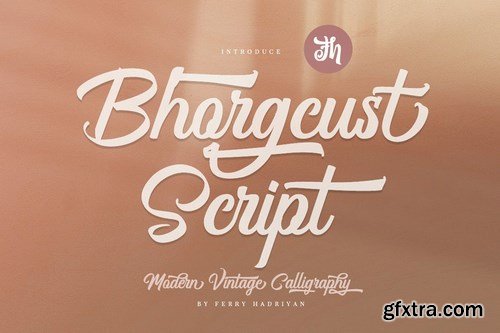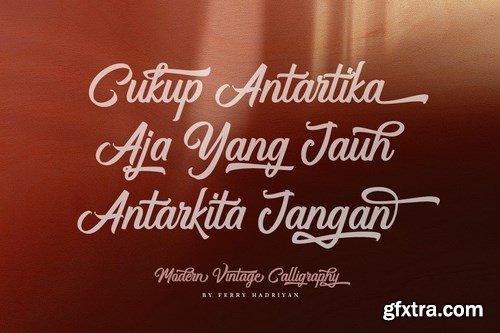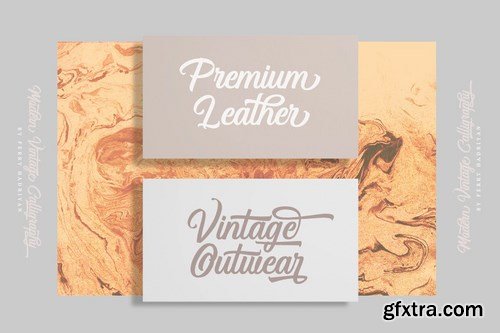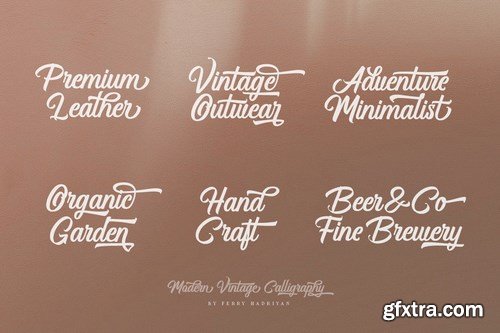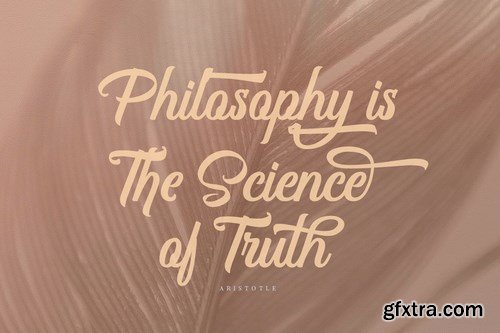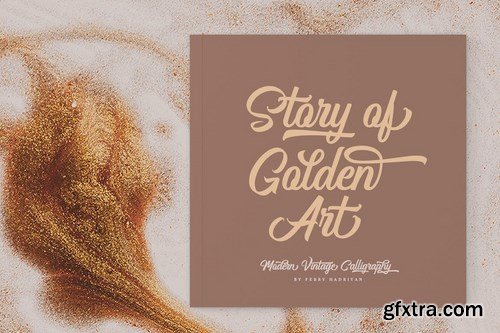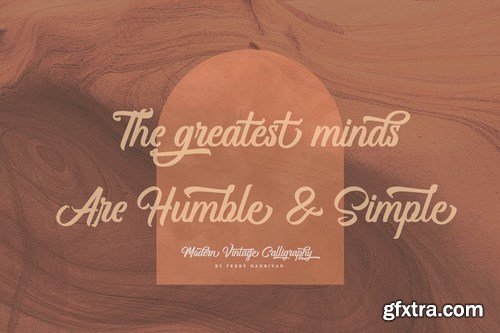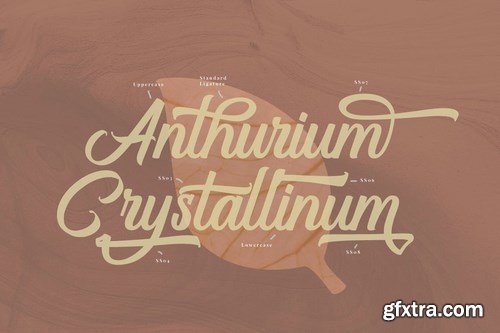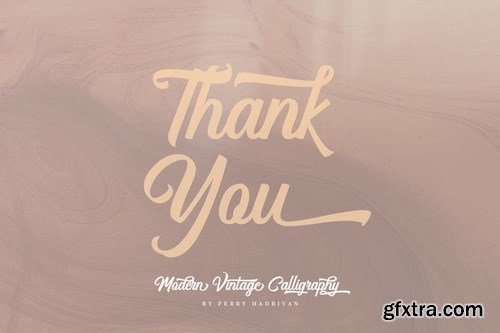
Bhorgcust is script font with authentic calligraphy style, withelehant swashes combination of letter form, so many opentype feature include of the font. Suitable for design, element design, wedding, event, t-shirt, logo, badges, sticker, and awesome work, etc...
All Standard Character, Symbol, Multilanguage, Ligature, Stylistic Set, and Swashes.
Unique style fonts